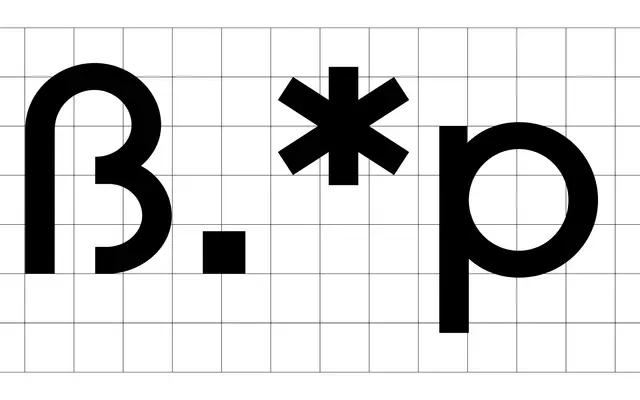
Neue Sammlung
Nice To Type · Yanik Hauschild and Gabriel Richter · 2025
A uniwidth geometric sans with Bauhaus roots, 20 stylistic sets and a stencil cut, released by Nice To Type in 2025.
Designed by Yanik Hauschild and Gabriel Richter, the family runs across six weights with matching italics in both default and Text optical variants, the latter correcting spacing and accent positioning in lighter cuts. A stencil subfamily adds a further dimension, and the variable font combines weight and italic axes in a single file with full interchange between default and Text styles. Twenty stylistic sets give designers granular control over the character of individual letters, from wavy forms to more conventional alternates.
Built on circular geometric principles with Bauhaus-influenced construction, featuring uniwidth spacing and playful alternates that soften an otherwise strict geometric skeleton.